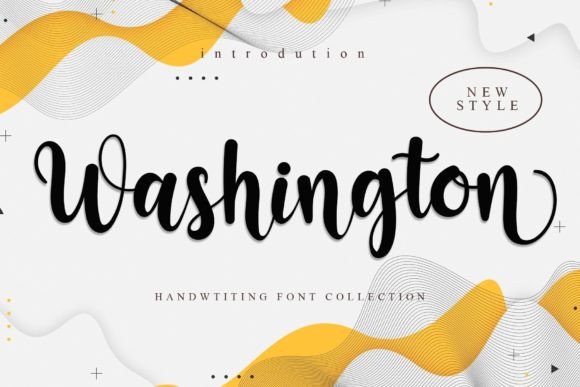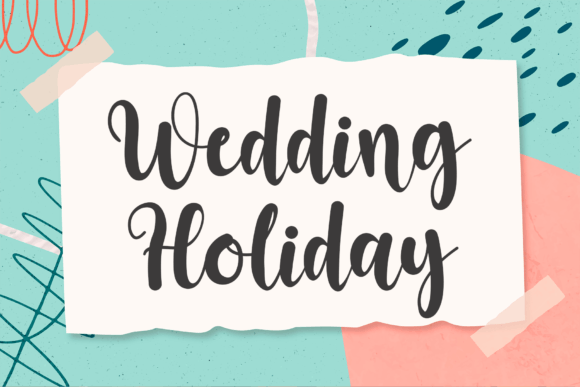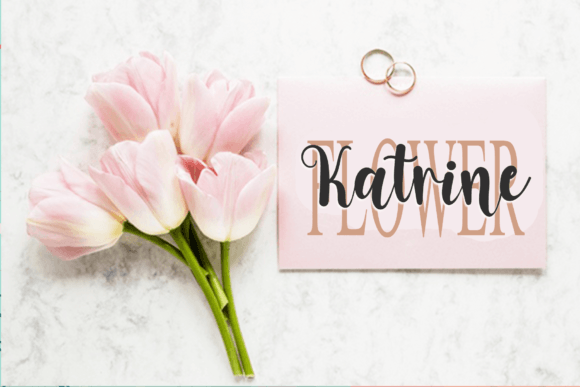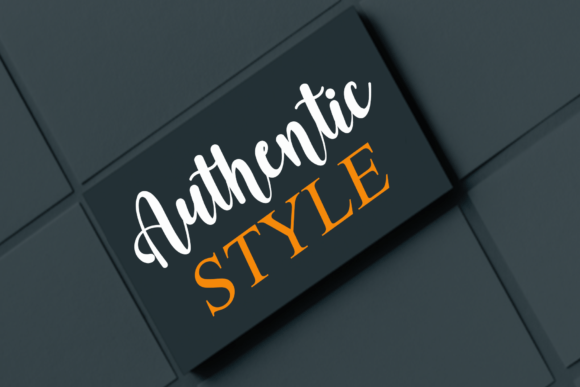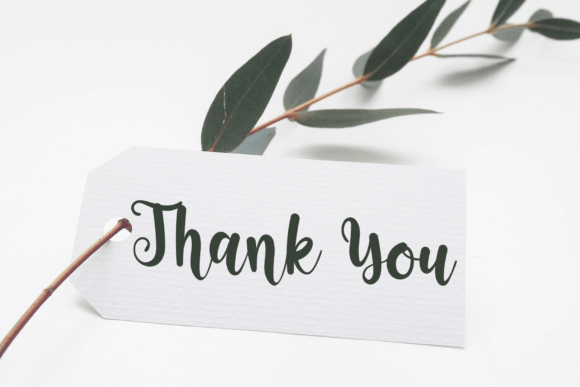
Washington Font
About Washington Font
“Washington” is a delightful and friendly handwritten font that brings a sense of fun and warmth to your designs. Its unique charm makes it a standout choice for turning any design idea into a true masterpiece. Embrace the inspiration drawn from its playful nature and let “Washington” be the catalyst for creating designs that are not only visually appealing but also exude a lovely and inviting charm.
At the core of “Washington” is its fun and friendly handwritten style. The whimsical strokes and casual letterforms give the font a personal touch, making it perfect for a wide range of applications. Whether you’re working on greeting cards, posters, or social media graphics, “Washington” adds a touch of joy and friendliness to your designs.
The unique charm of “Washington” serves as an inspiration for creative exploration. Its playful vibe encourages designers to think outside the box, experimenting with layouts, color schemes, and design elements. This font becomes more than just a typeface; it becomes a partner in the creative process, sparking ideas and infusing projects with a sense of character and individuality.
As you delve into the design process with “Washington,” you’ll find that its friendly demeanor creates an immediate connection with the audience. The font not only stands out visually but also resonates emotionally, making it a valuable asset for projects that aim to evoke positive and inviting feelings.
In conclusion, “Washington” is more than just a font; it’s an invitation to infuse your designs with joy and friendliness. Its fun and friendly handwritten style make it a versatile and inspiring choice for various creative projects. So, let the unique charm of “Washington” guide your creative journey, turning every design idea into a true standout with a touch of warmth and creativity.